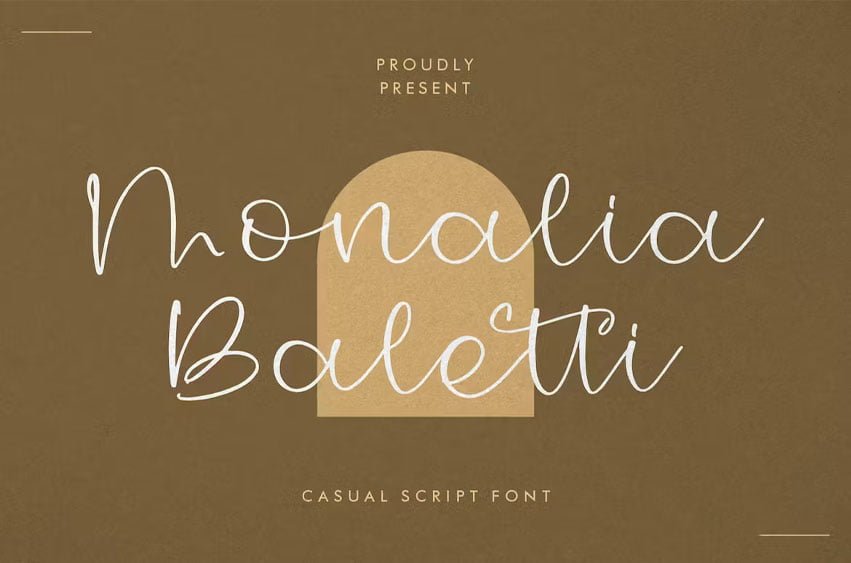
Monalia Baletti Font is suitable to complement your digital and printed creative products. This font is perfect for posters, social media posts, branding, personal projects, etc.